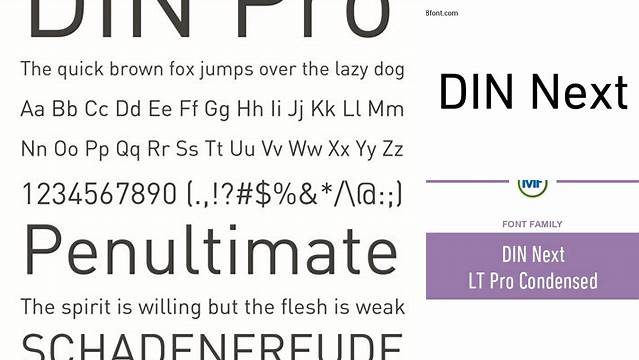
Understanding DIN Next Pro Condensed: A Typographic Powerhouse
Alright guys, let's dive deep into the world of DIN Next Pro Condensed. If you're anything like me, you've probably stumbled upon this font and wondered, "Wow, what is this sleek, professional-looking typeface?" Well, you're in the right place! DIN Next Pro Condensed isn't just any font; it's a workhorse, a true champion in the realm of typography. Its condensed nature means it packs a lot of information into a small space without sacrificing readability, making it incredibly versatile. Think about headlines that need to grab attention, tight navigation menus, or even extensive body text where space is a premium. This font delivers. Its roots are in the classic German industrial standard DIN (Deutsches Institut fΓΌr Normung), which originally focused on technical drawings and signage. However, DIN Next Pro Condensed takes that utilitarian foundation and elevates it with modern design sensibilities. It's clean, geometric, and possesses a certain modernist charm that appeals to a wide range of designers and businesses. The 'Pro' in its name suggests a professional-grade quality, and believe me, it lives up to it. The letterforms are meticulously crafted, ensuring excellent legibility across various sizes and applications, from tiny screen interfaces to large-format printing. Understanding its heritage and design philosophy is key to appreciating why it's so sought after. It strikes a perfect balance between technical precision and aesthetic appeal, a rare feat in the font world. So, when you're looking for a font that's both functional and stylish, DIN Next Pro Condensed should definitely be on your radar.
Why DIN Next Pro Condensed is a Designer's Dream
So, what makes DIN Next Pro Condensed font free download such a hot topic among creatives? It boils down to its sheer versatility and the sophisticated, modern aesthetic it brings to any project. Designers love it because it offers a clean, geometric structure that's incredibly easy to read, even when the text is tightly packed. This makes it perfect for a multitude of applications β think website layouts where every pixel counts, app interfaces that need clear and concise information, or even print materials like brochures and posters where you want to convey a lot of information without overwhelming the viewer. The 'condensed' aspect is a game-changer. It allows you to fit more text onto a line without making the characters too narrow or distorted, which is crucial for effective information hierarchy and visual design. Plus, the DIN Next Pro family itself is known for its extensive range of weights and styles, and the condensed version is no exception. This means you can create strong typographic contrast and hierarchy within your designs using just one font family, which is a huge time-saver and keeps your design cohesive. It's a font that communicates professionalism and efficiency, qualities that are highly valued in branding and corporate identity. When a client sees a design using DIN Next Pro Condensed, they often associate it with cutting-edge technology, sleek design, and a no-nonsense approach to communication. It's a font that doesn't shy away from being noticed but also doesn't scream for attention; it simply commands it with its understated elegance and robust functionality. The clarity it offers is unparalleled, ensuring your message gets across loud and clear, every single time.
Exploring the Nuances of DIN Next Pro Condensed Weights
When you're talking about DIN Next Pro Condensed font free download, it's crucial to understand that this isn't just a one-trick pony. The DIN Next Pro Condensed family boasts a surprisingly robust range of weights, and each one offers a subtly different character and application. You've got your ultra-lightweights, which are fantastic for airy, sophisticated headings or adding subtle emphasis. These are great when you want a touch of elegance without being too heavy-handed. Then, you move into the regular and medium weights, which are your go-to for body text or any situation where clear, consistent readability is paramount. These are the workhorses, providing excellent legibility even at smaller sizes. As you progress, the semi-bold and bold weights come into play, perfect for making strong statements, creating impactful headlines, or highlighting crucial information. These bolder versions command attention and ensure that key messages don't get lost in the visual noise. Finally, you have the ultra-bold or black weights, which are designed for maximum impact β think striking display type or short, punchy headlines that need to dominate a page. The genius here is how these weights work together. You can use a light weight for a sub-headline, a regular for the body copy, and a bold for a call-to-action, all within the same condensed style, maintaining a unified yet dynamic typographic voice. This level of control allows for intricate typographic systems and sophisticated design solutions. Experimenting with these different weights is key to unlocking the full potential of DIN Next Pro Condensed and ensuring your designs have both clarity and visual flair.
Key Features of DIN Next Pro Condensed You Need to Know
Let's get down to the nitty-gritty, guys. When you're looking for a DIN Next Pro Condensed font free download, you want to know what makes it special, right? Well, this font is packed with features that make it a joy to use. First off, its geometric construction is a standout. Inspired by modernist principles, the letterforms are based on simple shapes like circles and straight lines, giving it a clean, objective, and highly readable appearance. This precision makes it incredibly versatile across digital and print media. Secondly, the condensed aspect ratio is its defining characteristic. This means the letters are narrower than their standard counterparts, allowing you to fit more text into a given space without compromising legibility. This is a lifesaver for designers working with limited screen real estate or needing to pack a lot of information into headlines, captions, or UI elements. Another crucial feature is its extensive character set. DIN Next Pro Condensed typically includes a wide range of glyphs, supporting multiple languages with diacritics, and often offers features like alternate characters, ligatures, and fractions. This ensures that no matter your project's linguistic needs or stylistic preferences, the font can accommodate them. The clarity and legibility are paramount. Even in its condensed form, the letter spacing and open counters (the enclosed or partially enclosed negative space in letters like 'o' or 'a') are carefully balanced to maintain readability. This prevents the text from appearing cramped or fuzzy, even at small sizes. Finally, the harmonious integration with the broader DIN Next Pro family is a massive plus. If you need a standard width or a different weight, you can seamlessly switch between them while maintaining a consistent typographic tone. This holistic approach makes it a powerful tool for building comprehensive visual identities. These features combined make DIN Next Pro Condensed a robust, flexible, and aesthetically pleasing choice for a wide array of design challenges.